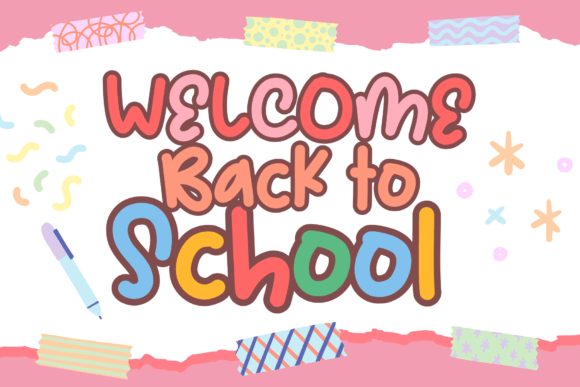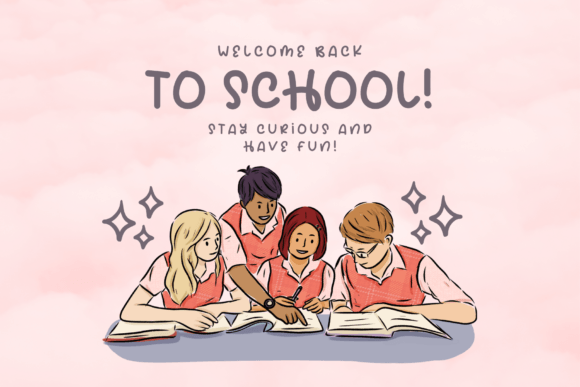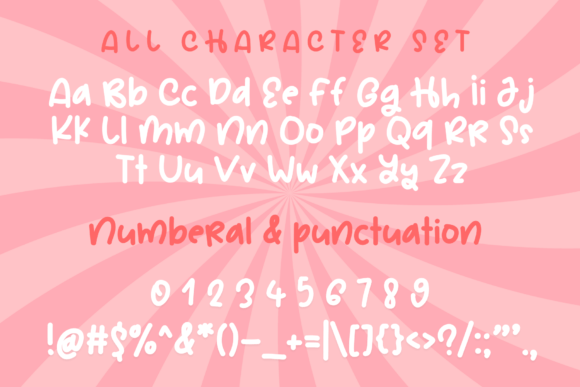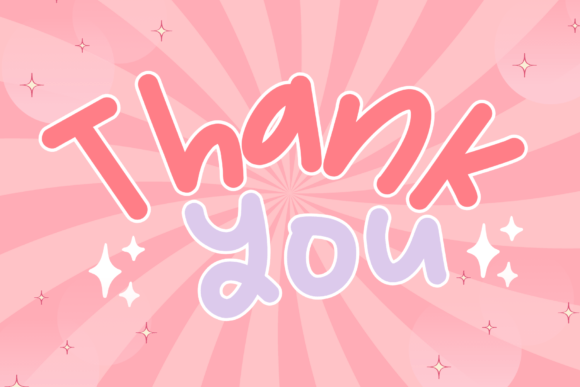
Bruh We Back Font: The Perfect Handwritten Font for Your Creative Projects
Are you tired of using the same old fonts for your designs? Look no further! Introducing Bruh We Back Font, a cute handwritten font that embodies playfulness and authenticity. This font is perfect for designers and crafters who want to add a personal touch to their projects. Whether you’re working on blog posts, logos, branding, ads, invitations, greeting cards, planners, photo albums, decorations, or more, Bruh We Back Font is the ideal choice.
What Makes Bruh We Back Font So Special?
Bruh We Back Font is a unique and charming handwritten font that stands out from the crowd. Its playful and authentic feel makes it perfect for projects that require a personal touch. The font is designed to be versatile and can be used for a wide range of applications, from digital designs to print materials.
Key Features of Bruh We Back Font
- Playful and Authentic: Bruh We Back Font has a unique and charming handwritten feel that adds a personal touch to your designs.
- Versatile: This font can be used for a wide range of applications, including blog posts, logos, branding, ads, invitations, greeting cards, planners, photo albums, decorations, and more.
- Easy to Read: The font is clear and easy to read, making it perfect for body text and headings.
Why Choose Bruh We Back Font for Your Projects?
- Adds a Personal Touch: The handwritten feel of Bruh We Back Font adds a personal touch to your designs, making them more relatable and engaging.
- Stand Out from the Crowd: The unique and playful feel of this font helps your designs stand out from the crowd and grab attention.
- Perfect for Creative Projects: Bruh We Back Font is perfect for creative projects that require a personal touch, such as blog posts, invitations, greeting cards, and more.
- Pair it with Other Fonts: Pair Bruh We Back Font with other fonts to create a unique and interesting contrast.
- Use it for Headings and Body Text: Use Bruh We Back Font for headings and body text to create a cohesive look.
- Use it for Digital and Print Materials: Use Bruh We Back Font for both digital and print materials to create a cohesive look.